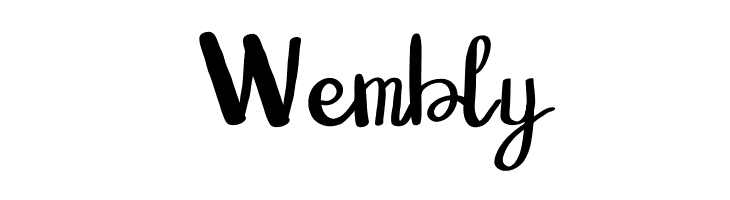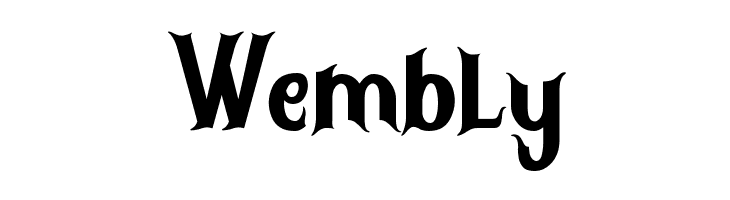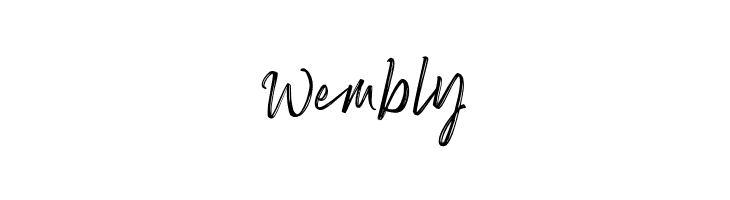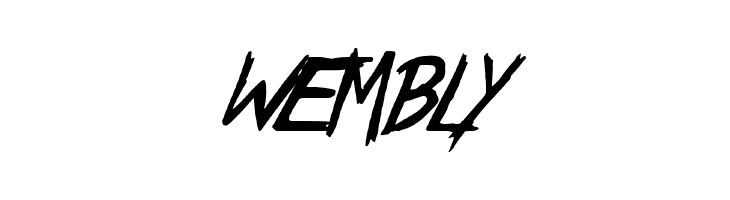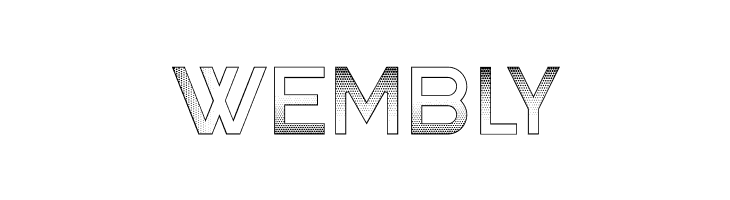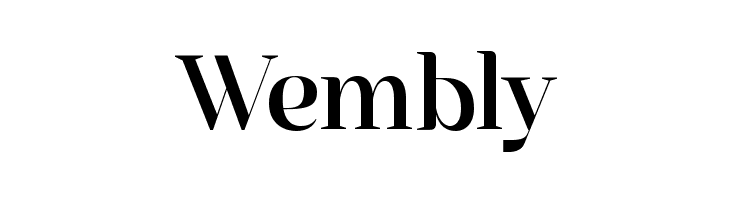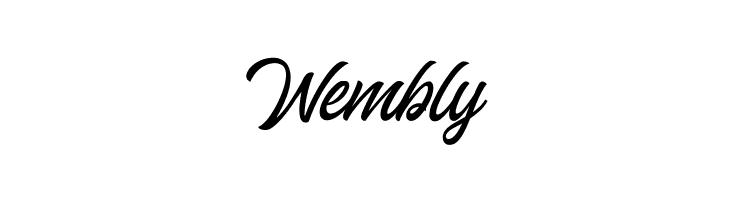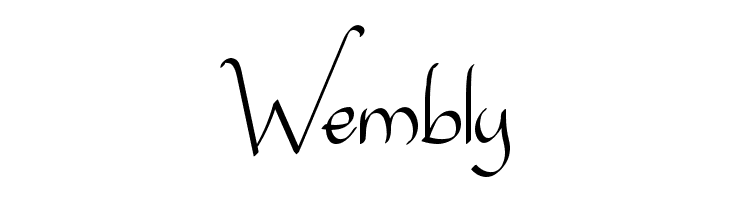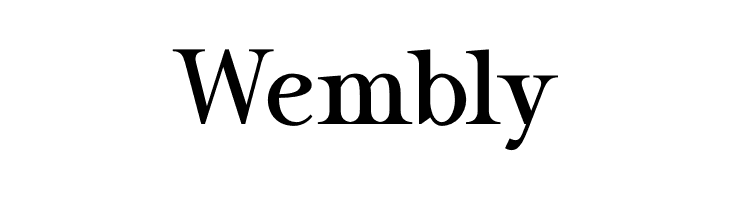
Sanford Font
A classic serif font with elegant strokes and moderate contrast.
Sanford Book Font
A classic serif typeface with elegant proportions and refined strokes.
SanFrancisco Font
A playful, handwritten font with a quirky and dynamic style.
SanFrediano Font
A modern, clean sans-serif font with balanced spacing and consistent stroke width.
SanFrediano-Bold Font
SanFrediano-BoldItalic Font
SanFrediano-Italic Font
A sleek, modern italic font with smooth curves and clean lines.
SanFrediano-Light Font
A modern, sans-serif font with a clean and minimalistic design.
SanFrediano-LightItalic Font
A sleek, modern light italic font with smooth, consistent strokes.
Sanfrisco Font
A bold, eclectic font with a mix of modern and vintage elements, featuring unique character designs.
Sang Bintang Font
Sang Dewi Font
A lively handwritten script font with dynamic strokes and playful contrast.
Sang Fatchurrohmah Font
An elegant and decorative script font with intricate loops and flourishes.
SANG JAWARA Font
A bold blackletter font with sharp, angular lines and gothic influences.
Sang Jutawan Font
A playful, casual handwritten font with smooth, rounded edges.
SangDewi Font
A lively handwritten font with fluid, expressive strokes.
Sanger Show Font
A playful, handwritten font with smooth, rounded edges and a casual style.
SangFatchurrohmah Font
An elegant and decorative script font with intricate swashes and curls.
Sanggria Font
An elegant, flowing script font with graceful curves and artistic flair.
Sangharia Font